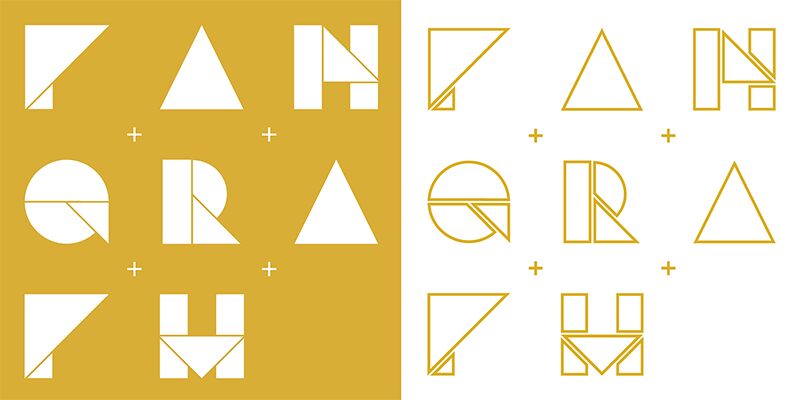
Pangraph-Black
Pangraph Black is a bold and impactful display font that commands attention. Designed by Giacomo Marangon, this techno-inspired typeface exudes a striking visual presence. Its angular letterforms and sharp edges convey a sense of modernity and digital sophistication. Pangraph Black's powerful aesthetic makes it an ideal choice for a wide range of design applications, from eye-catching headlines and logos to dynamic digital interfaces and product branding.
With its distinctive style and versatile personality, this font stands out as a versatile tool for designers seeking to create arresting, memorable visual experiences.